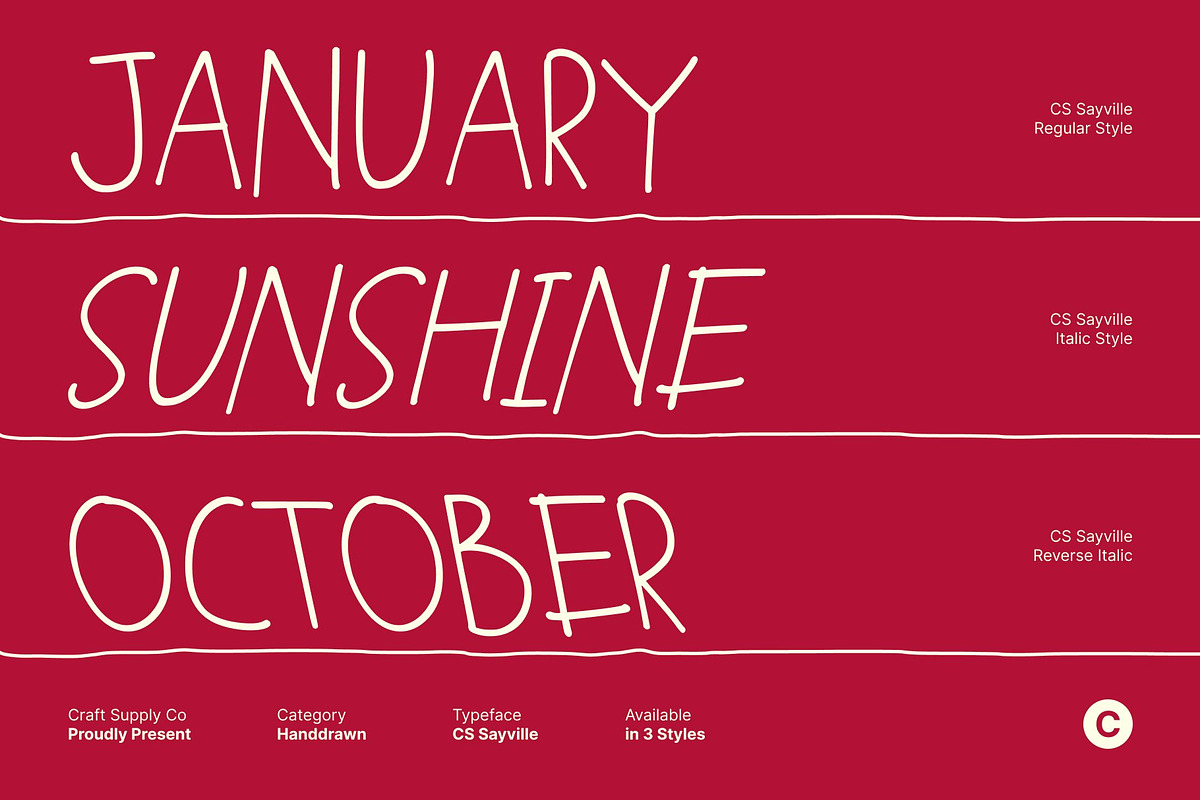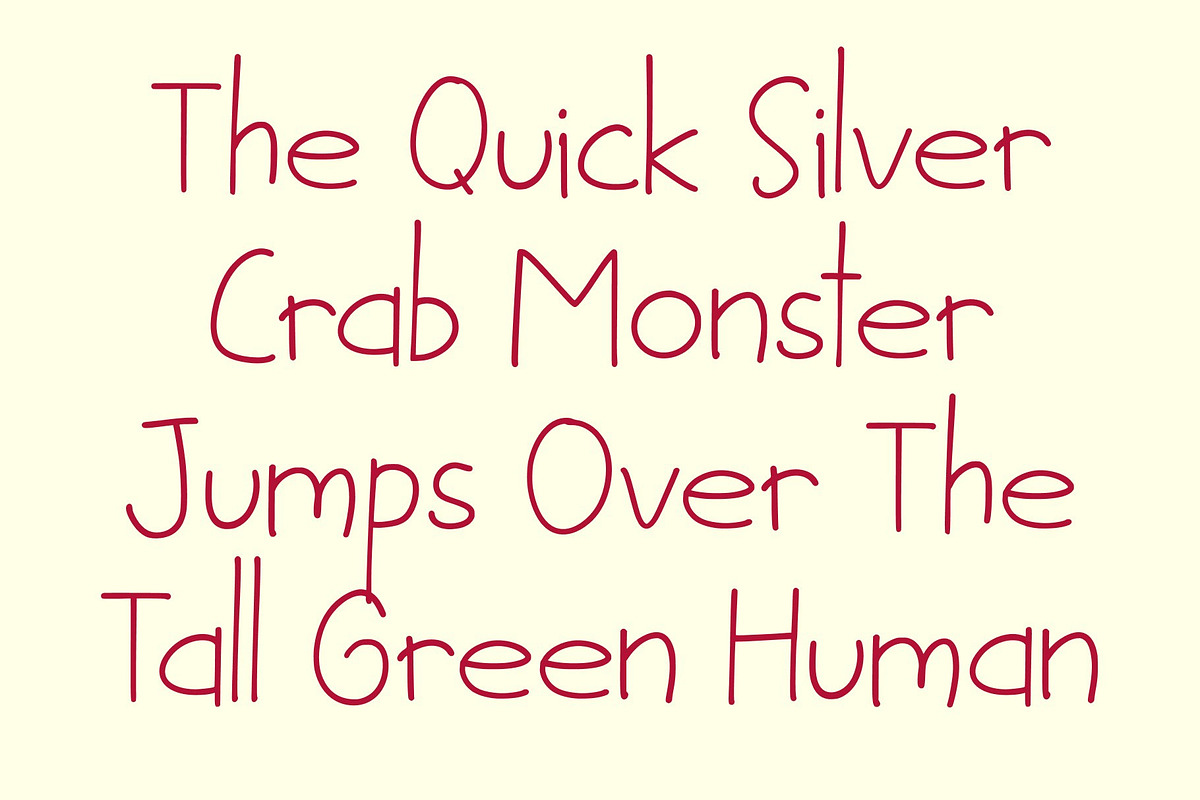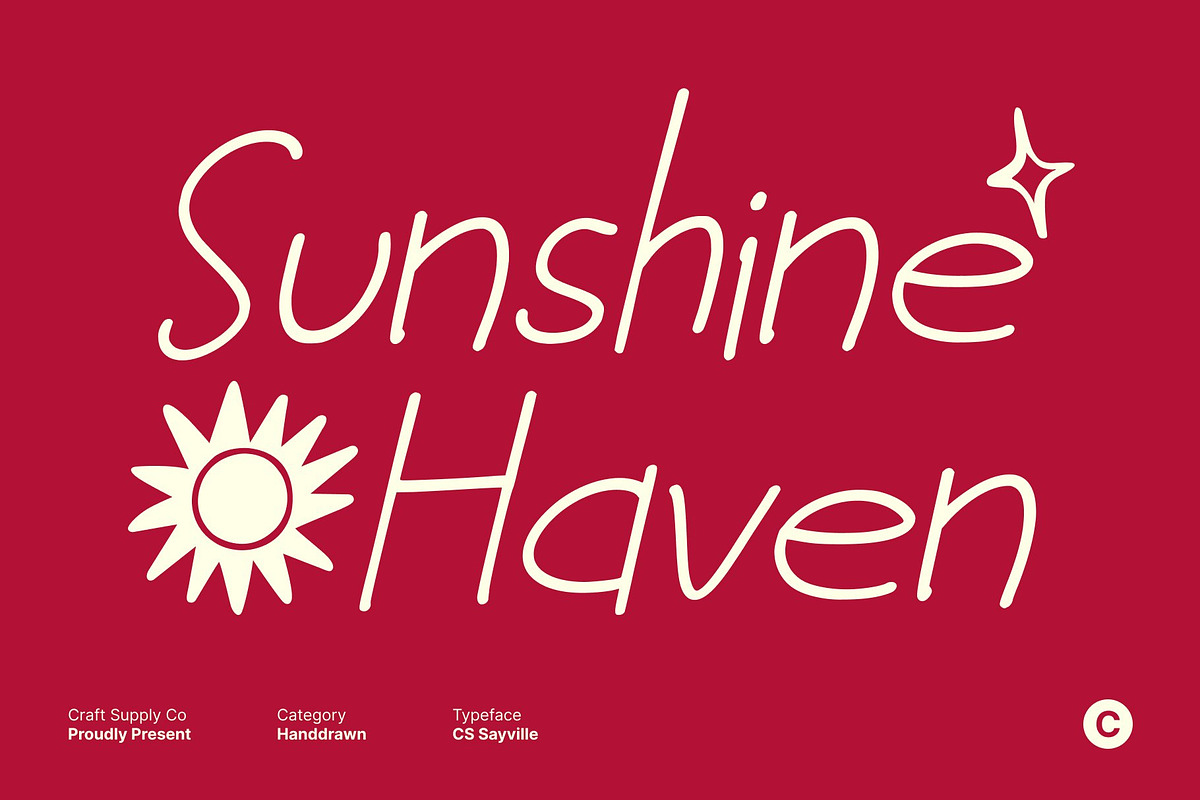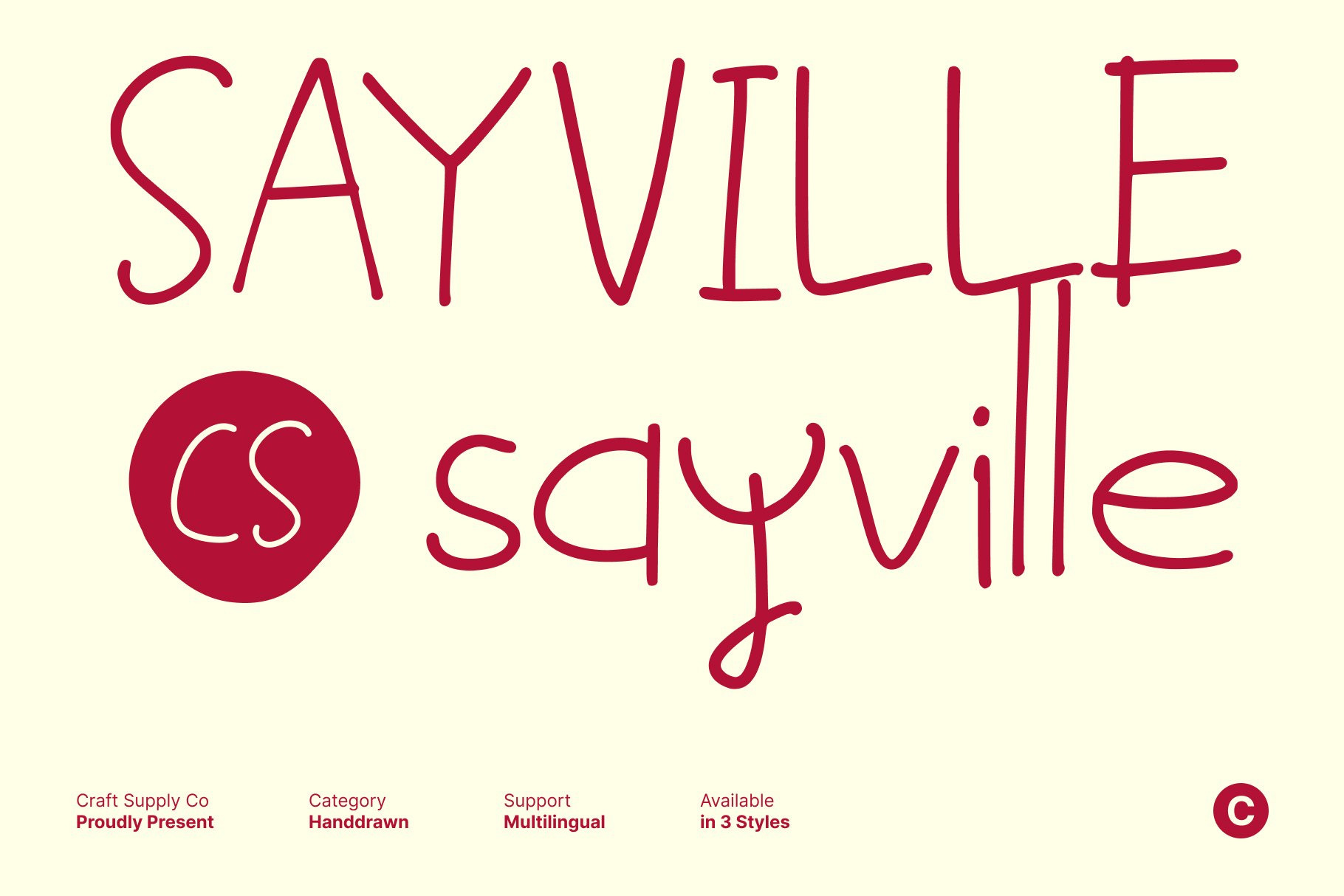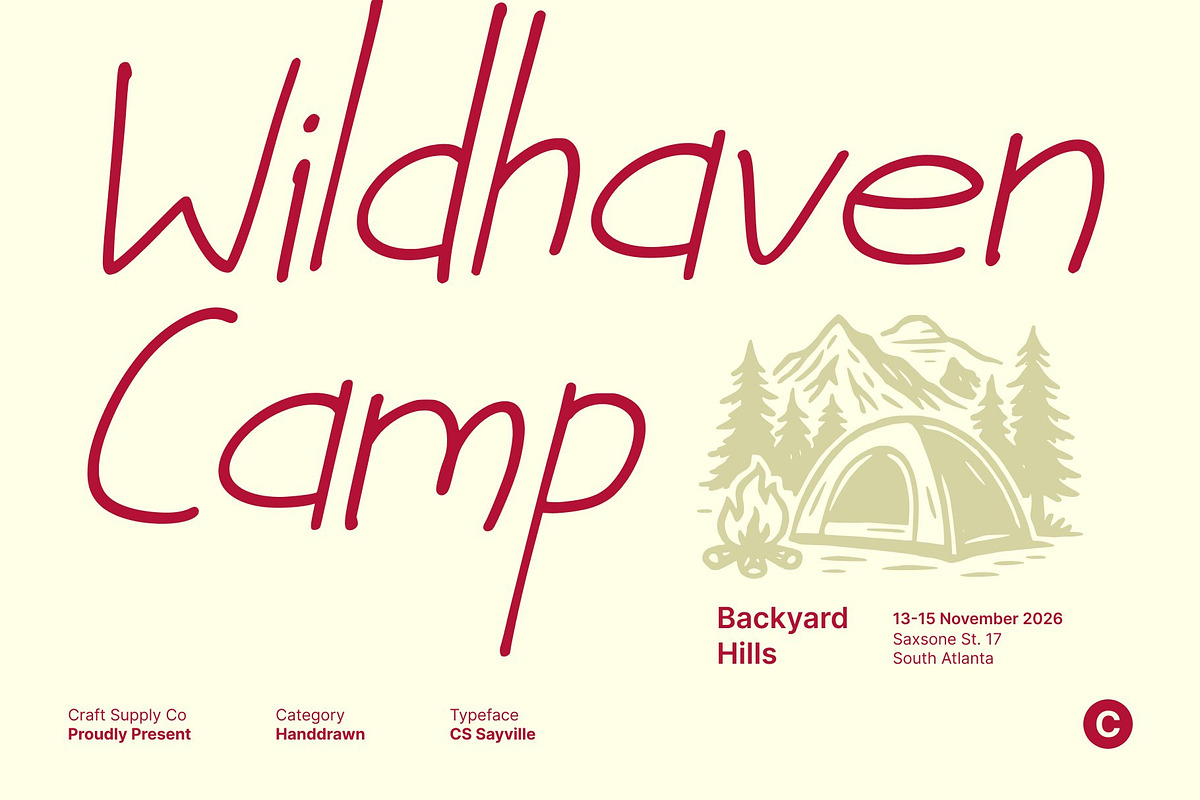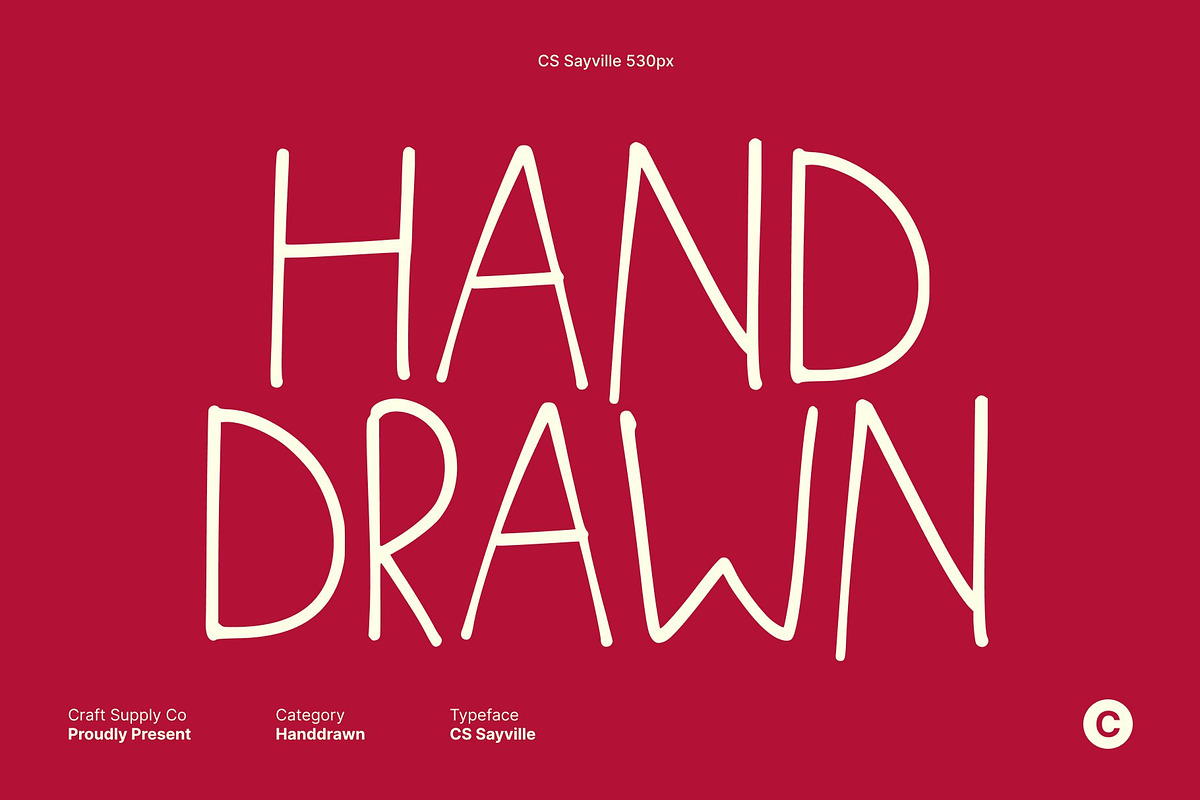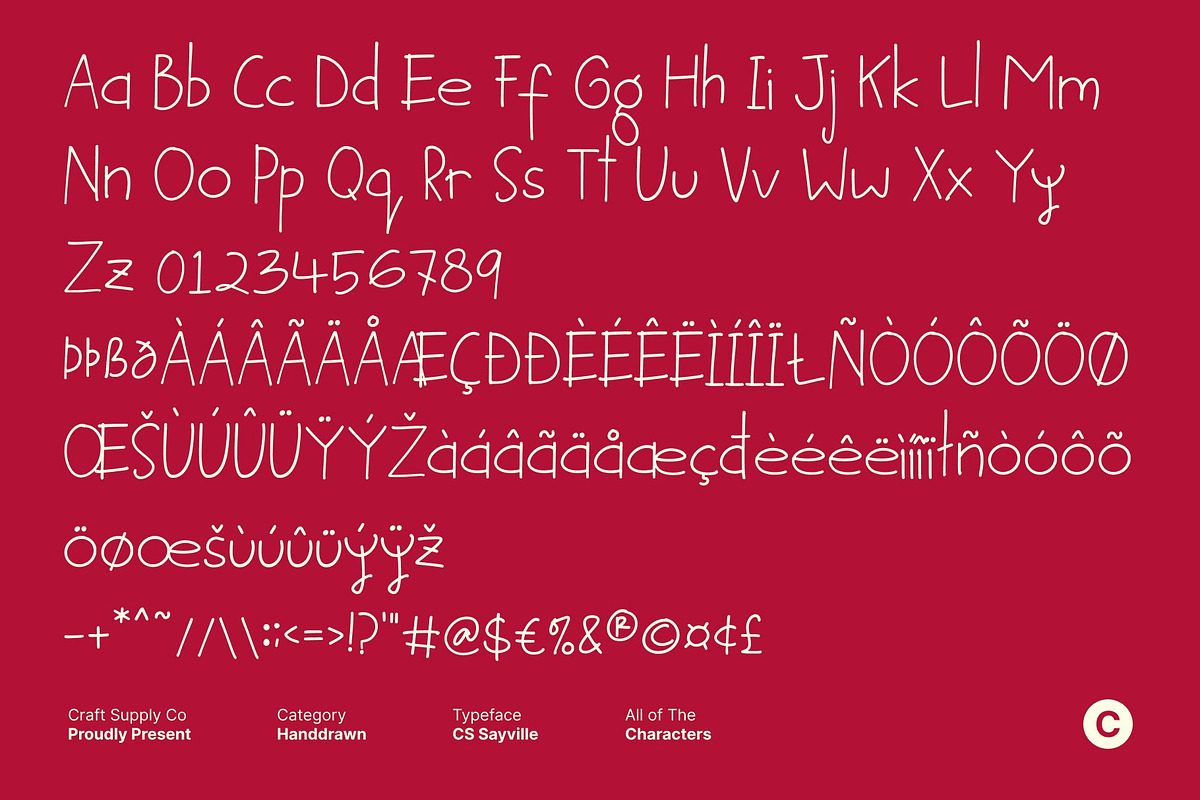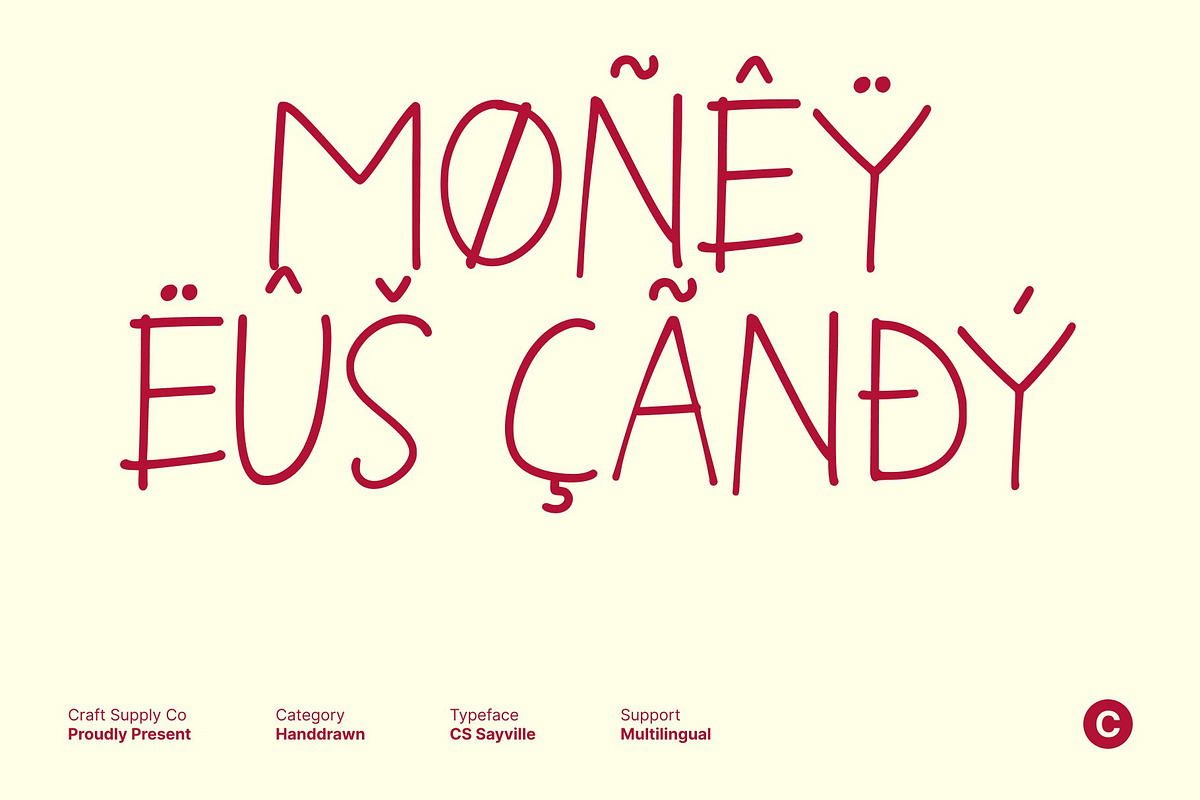
CS Sayville – Handwriting Font
CS Sayville – Casual Sweet Meets Modern Clarity
Handwriting Sans Font This is a handwriting-inspired sans serif font that combines casual, flowing strokes with the clean structure of a modern sans. Its stylistic curves and soft lines give text a natural, approachable, and visually appealing personality, making it perfect for a wide range of design applications.
Balanced Design for Readability With its thoughtful combination of handwritten charm and sans serif clarity, this font ensures every word remains legible while maintaining a playful, artistic feel. The balanced letterforms make it ideal for projects where readability and style must coexist harmoniously.
Versatile for Diverse Projects This font adapts beautifully to branding, quotes, invitations, posters, and packaging. Its warm and inviting aesthetic adds character to personal and commercial designs alike, making it a reliable choice for both creative and professional applications.
Expressive and Modern The soft, handwritten touches of this font inject personality and authenticity into any project. Perfect for designs that aim to be stylish, approachable, and visually engaging, it elevates everyday text with charm and elegance.
- CS Sayville Regular
- CS Sayville Italic
- CS Sayville Reverse Italic